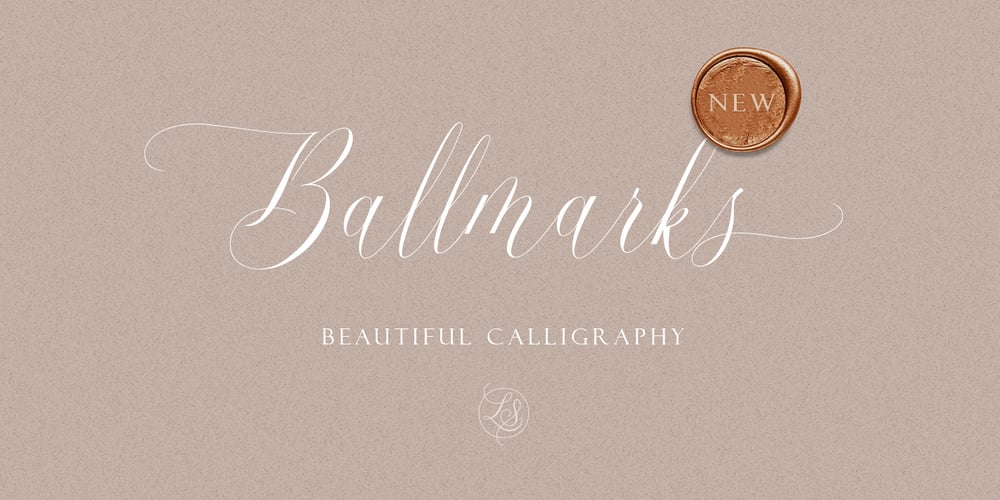
Ballmarks Font Family was designed by Hendry Juanda and published by Letterhend. Ballmarks contains 1 styles and family package options. Ballmarks beautiful calligraphy font with swash. This font will add a feminine touch to make your design more soft and beautiful. This font is perfect for wedding invitation, quotes, branding, packaging, etc.What will you get: Including number and symbol. Support Multi Language This font also support PUA Encoded! So, grab your own. Thank You!